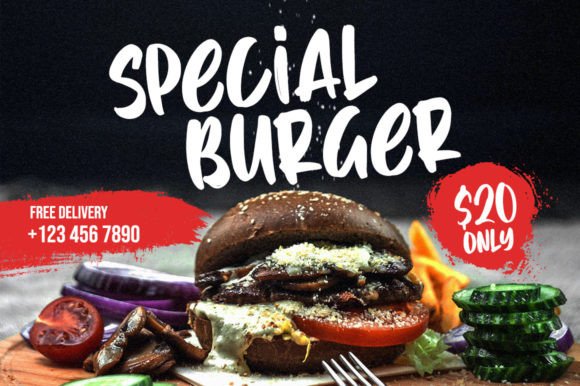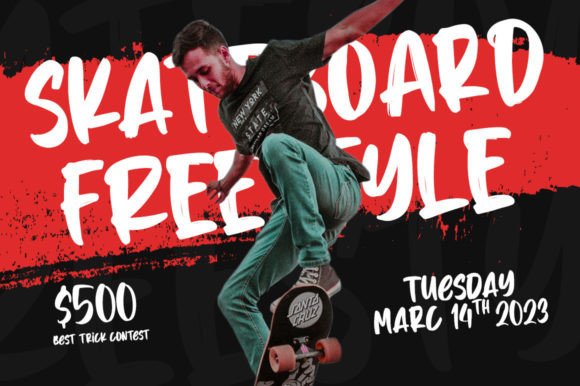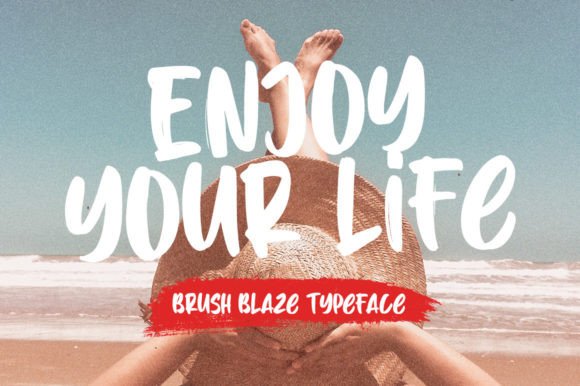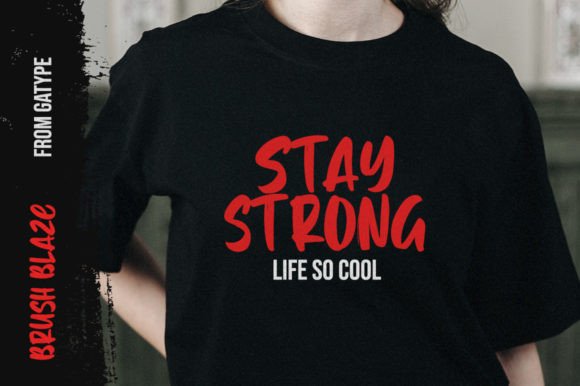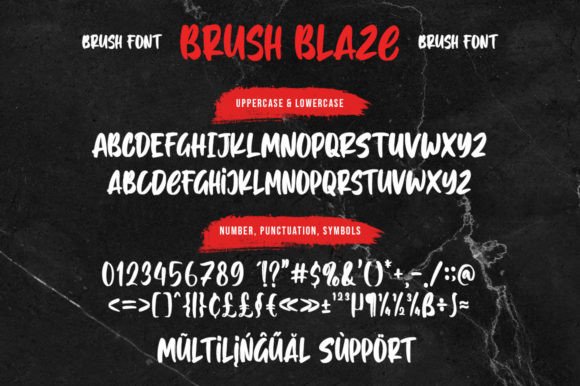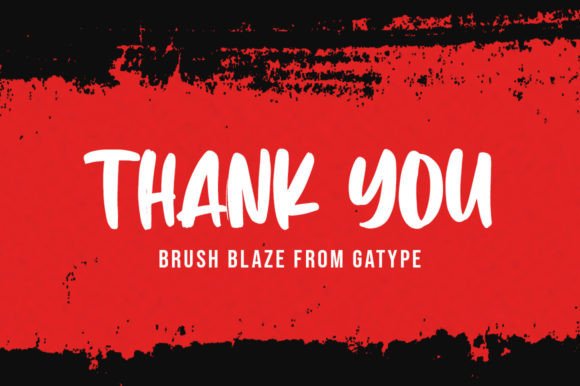
Unleash Your Creativity with Brush Blaze Font: A Natural Texture for Stunning Designs
Are you tired of using the same old fonts for your designs? Look no further! Brush Blaze Font is here to revolutionize your creative process with its unique, natural texture that adds a personal touch to any project. In this article, we’ll dive into the world of Brush Blaze Font, exploring its features, uses, and benefits for designers and crafters.
What is Brush Blaze Font?
Brush Blaze Font is a handcrafted font that was meticulously scratched with a brush pen to achieve a natural, organic texture. This distinctive characteristic sets it apart from other fonts, giving it a one-of-a-kind feel that’s perfect for designers seeking to add a touch of personality to their work.
Features of Brush Blaze Font
- Natural Texture: The font’s unique texture, achieved through brush pen scratches, adds a human touch to your designs.
- Versatility: Brush Blaze Font is suitable for a wide range of design applications, from clothing and posters to stationery and packaging.
- Ease of Use: The font is easy to read and works well in various contexts, making it a great addition to your design toolkit.
Uses of Brush Blaze Font
Brush Blaze Font is an incredibly versatile font that can be used in various design projects, including:
- Clothing Designs: Add a personal touch to your apparel designs with Brush Blaze Font, perfect for t-shirts, hoodies, and more.
- Posters and Flyers: Create eye-catching posters and flyers with Brush Blaze Font, ideal for promoting events, products, or services.
- Title Books and Stationery: Use Brush Blaze Font to add a touch of elegance to book titles, journals, and stationery designs.
- Branding and Logos: Create unique logos and branding materials with Brush Blaze Font, perfect for businesses seeking a distinctive identity.
- Invitations and Greeting Cards: Add a personal touch to your invitations and greeting cards with Brush Blaze Font, making them extra special.
- Packaging Designs: Use Brush Blaze Font to create eye-catching packaging designs that stand out on store shelves.
Benefits of Using Brush Blaze Font
So, why should you choose Brush Blaze Font for your designs? Here are just a few benefits:
- Unique Designs: Brush Blaze Font helps you create one-of-a-kind designs that stand out from the crowd.
- Time-Saving: The font’s versatility and ease of use save you time and effort in your design process.
- Professional Look: Brush Blaze Font gives your designs a professional, high-end look that’s sure to impress.
Tips for Using Brush Blaze Font
To get the most out of Brush Blaze Font, here are some tips to keep in mind:
- Experiment with Colors: Try pairing Brush Blaze Font with different colors to create unique and eye-catching designs.
- Play with Texture: Experiment with different textures and patterns to add depth and interest to your designs.
- Keep it Simple: Don’t be afraid to keep your designs simple and clean, allowing Brush Blaze Font to take center stage.
Brush Blaze Font is a game-changer for designers and crafters seeking to add a personal touch to their work. With its unique natural texture, versatility, and ease of use, this font is perfect for a wide range of design applications. Whether you’re creating clothing designs, posters, or packaging, Brush Blaze Font is sure to help you unleash your creativity and produce stunning results.